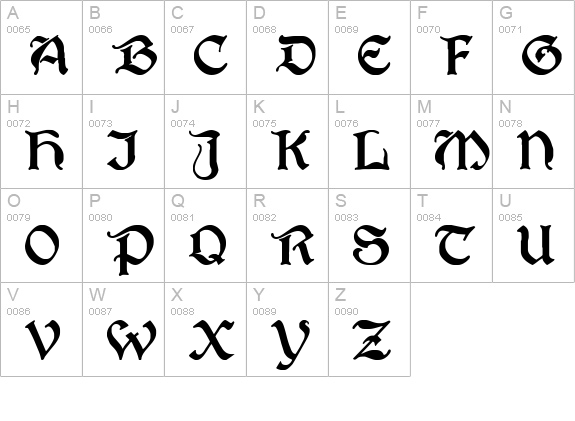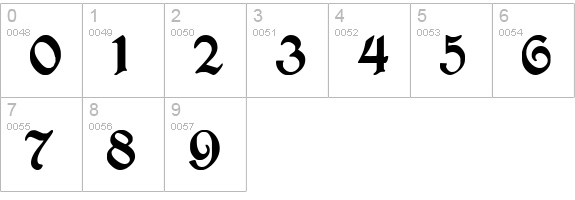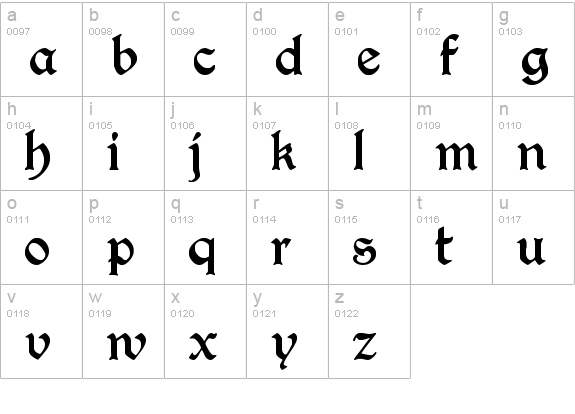
Perry Gothic Font Details
Perry Gothic font is a versatile and captivating typeface that exudes an air of mystery and sophistication. With its sharp, angular letterforms and bold presence, this font is perfect for creating eye-catching headlines, logos, and branding materials. The uniqueness of Perry Gothic lies in its ability to seamlessly blend modern aesthetics with a touch of vintage charm. The sharp serifs and clean lines give it a contemporary edge, while the bold weight and intricately designed characters add a hint of classic elegance. One of the most appealing aspects of Perry Gothic is that it is available for free. You can download this exceptional font at FontsMarket.com, making it accessible to designers and enthusiasts alike. Whether you are a professional designer looking to elevate your projects or a hobbyist seeking to explore typography, Perry Gothic is the perfect addition to your font collection. With its extensive character set, including uppercase and lowercase letters, numbers, punctuation marks, and special symbols, Perry Gothic offers endless possibilities for creative expression. From elegant editorial layouts to edgy poster designs, this font enables you to make a bold statement and captivate your audience. Perry Gothic is designed with utmost attention to detail, ensuring excellent legibility even at smaller sizes. Its versatile nature makes it suitable for a wide range of applications, such as websites, print materials, packaging, and more. Embrace the power of Perry Gothic and unleash your creativity with this exceptional font. Download it for free at FontsMarket.com, and let its striking presence elevate your designs to new heights.